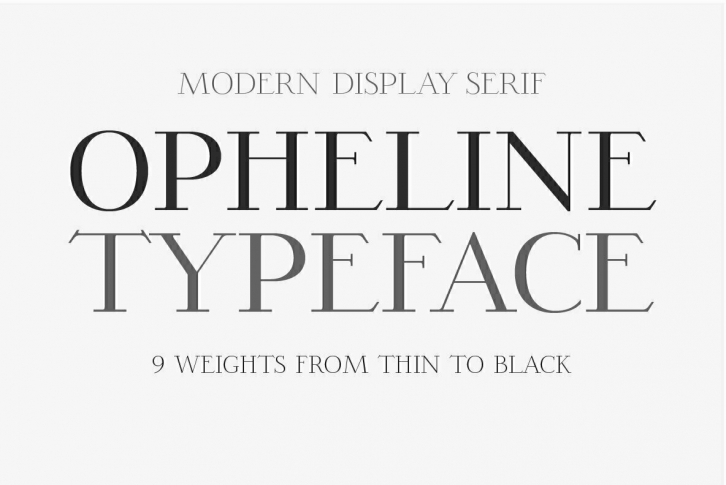
Opheline is modern display serif family of 9 fonts. The family consists of 9 weights, ranging from thin to black. The thin version reflects elegance and soft texture, while the black version represents modern and strong appearance.
The vast range of Opheline family will help you to tackle your designs problem that need professional or classical touch; from the professional-look branding of law firm to classic-historical product branding.